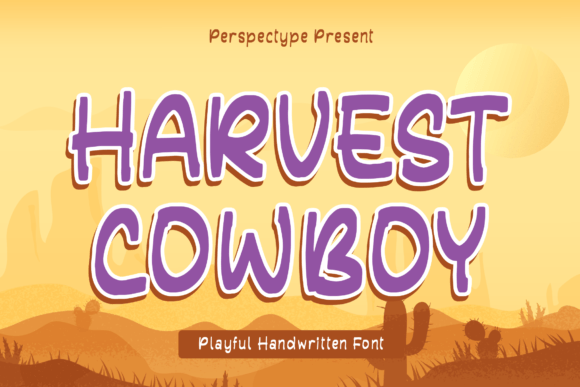
Introducing Harvest Cowboy Font, a vivacious and whimsical font family that exudes a youthful charm. With its playful curves and stylish swashes, it's the perfect choice for adding a touch of fun and personality to your creative projects.
Immerse yourself in the world of Harvest Cowboy, a charismatic script that dances across your designs, captivating audiences with its unique allure. Its versatility shines in both professional and casual settings, making it the ultimate choice for branding designs, labels, websites, business cards, packaging, posters, flyers, and more.
Whether you're seeking a font to elevate your branding or inject a touch of whimsy into your social media posts, Harvest Cowboy has your back. It effortlessly adds a personal touch to invitations, special occasions cards, and any occasion that calls for a dash of cheerfulness.
Let Harvest Cowboy be your creative companion, inspiring you to craft designs that speak to the heart. Its distinctive style is guaranteed to leave a lasting impression on your audience, making your projects stand out from the crowd.
With Harvest Cowboy, your designs will radiate a youthful exuberance and charm. Embrace the playful spirit of this font and let your creativity soar.